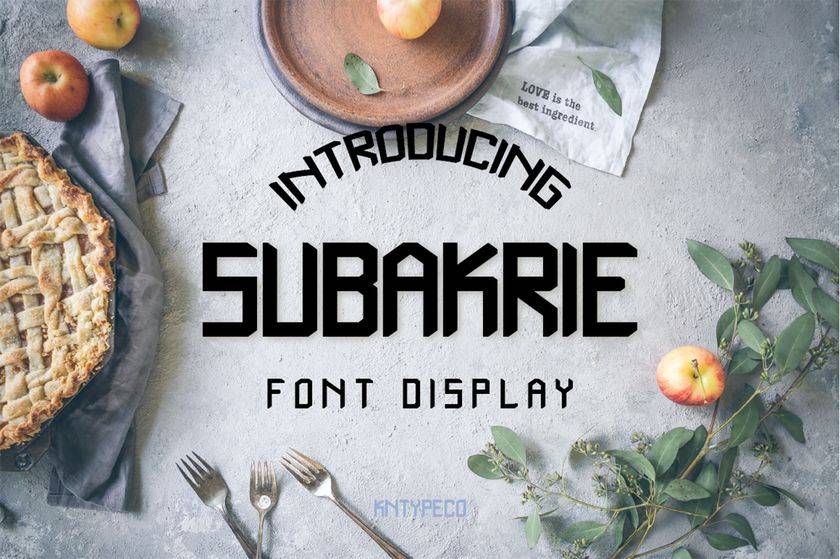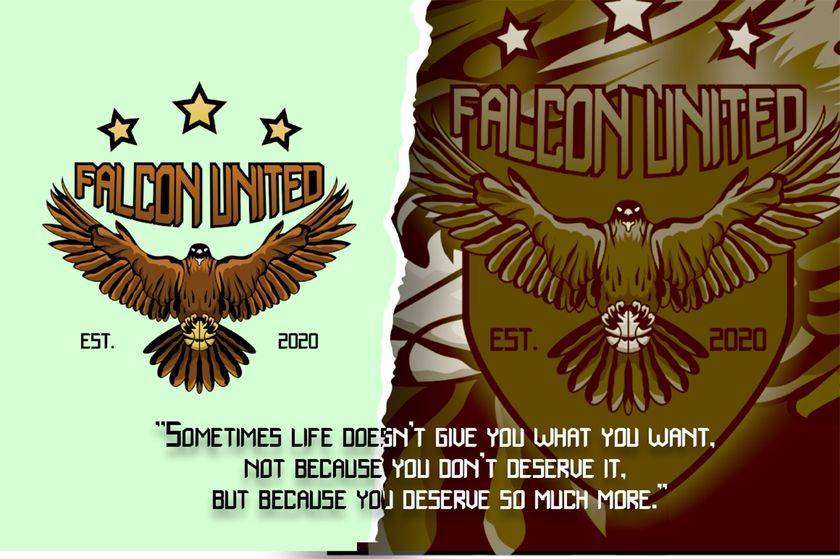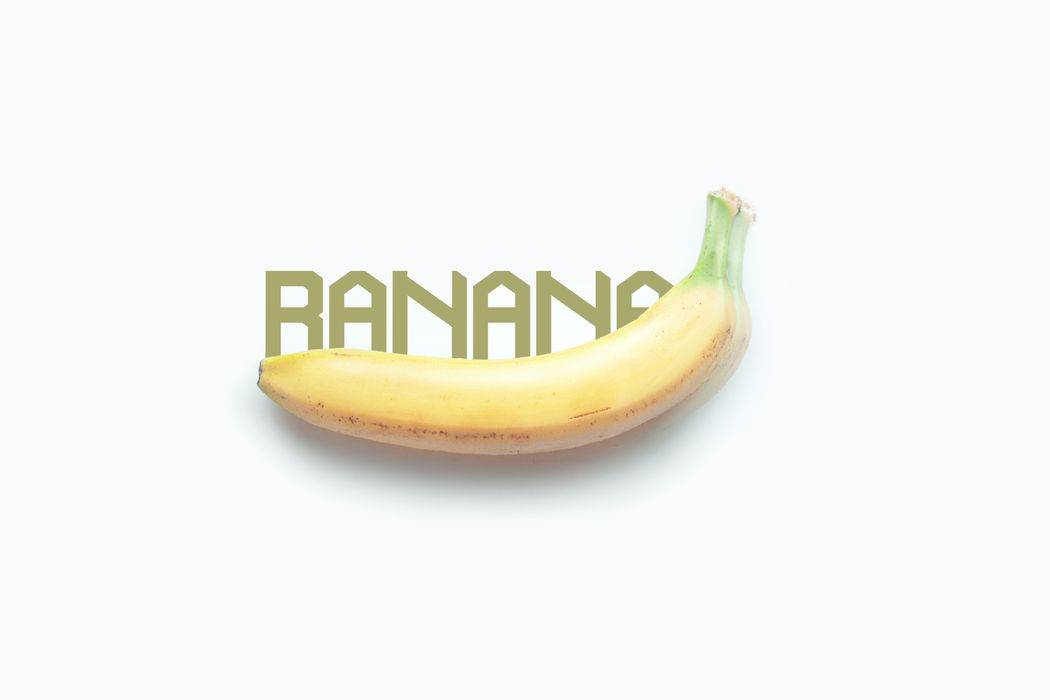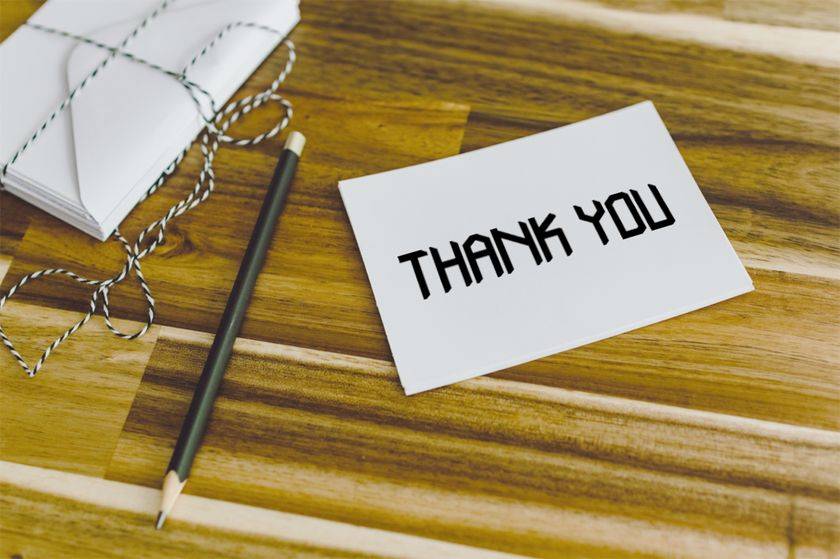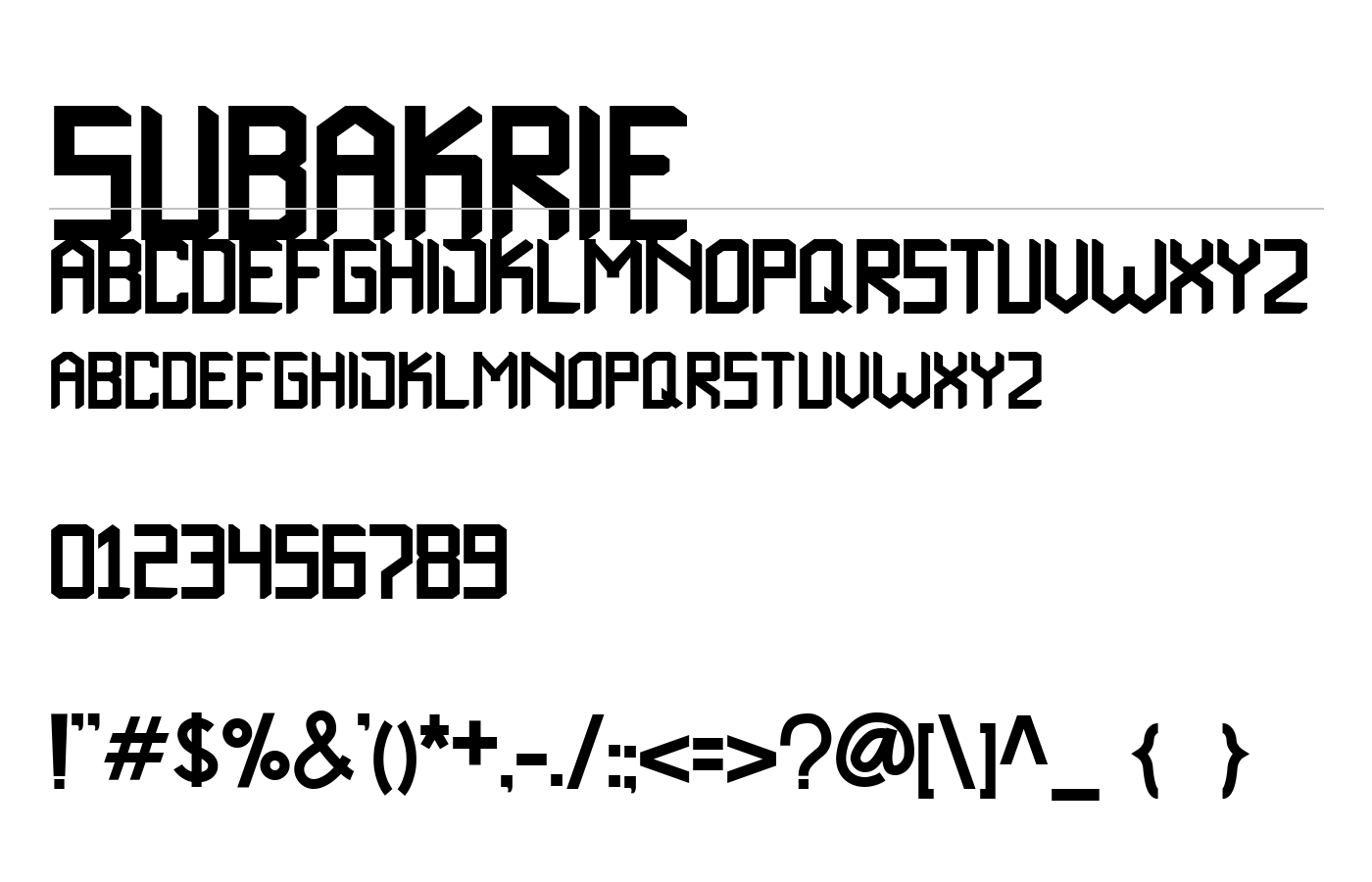
Subakrie is a bold, condensed sans serif font with a distinctive geometric and angular design that gives it a strong, modern, and slightly futuristic vibe. Its tall, narrow letterforms with consistent stroke weight and sharp edges make it ideal for striking headlines, logos, and branding that require a tech-savvy or edgy personality. This font works best in display settings where its unique style can capture attention and add a contemporary, dynamic feel.
Subakrie Font
About Subakrie Font